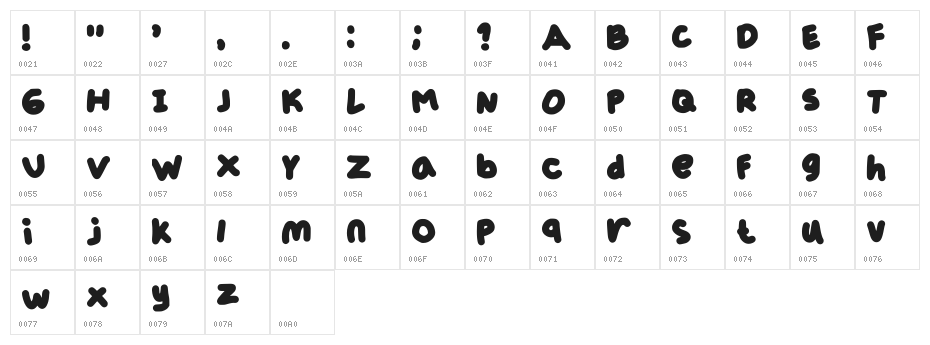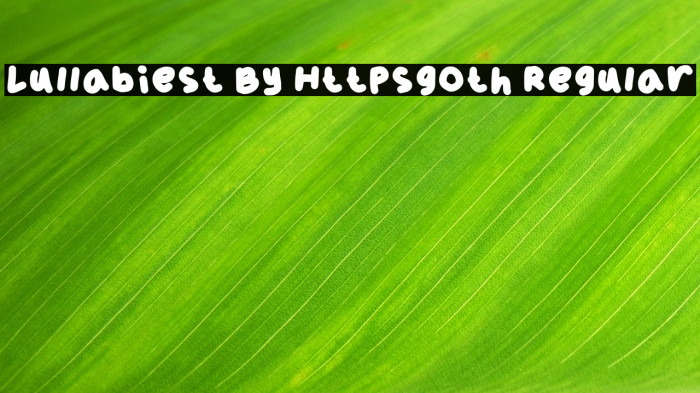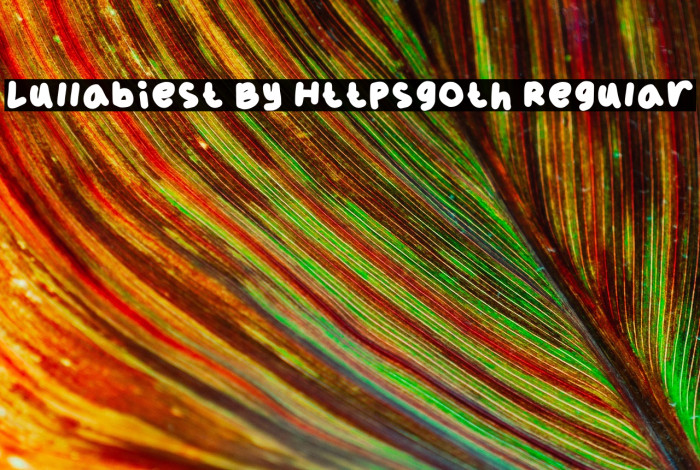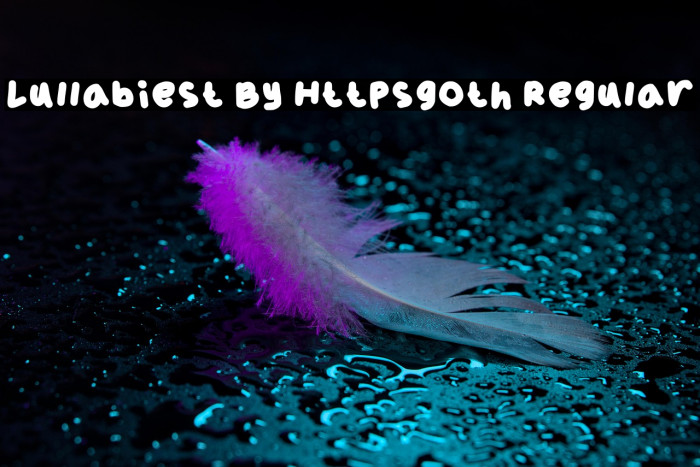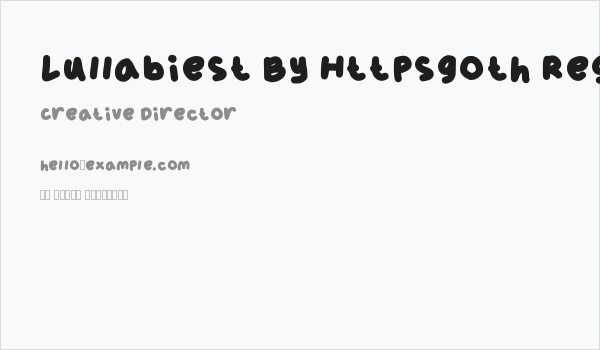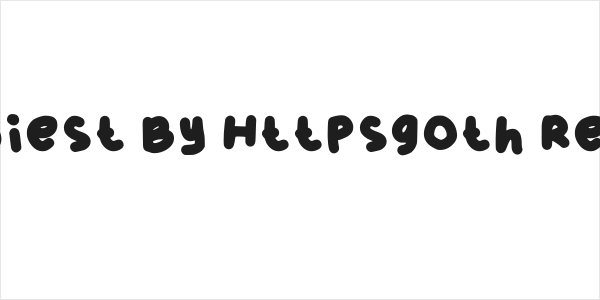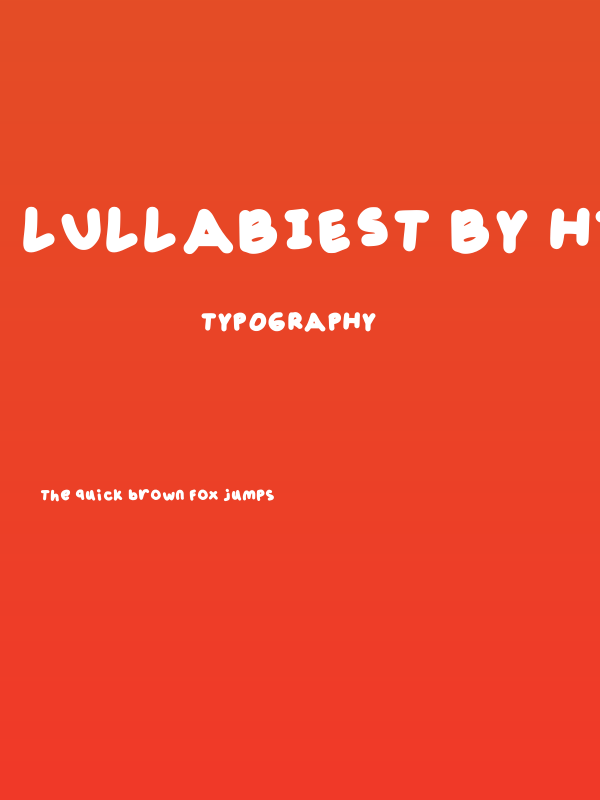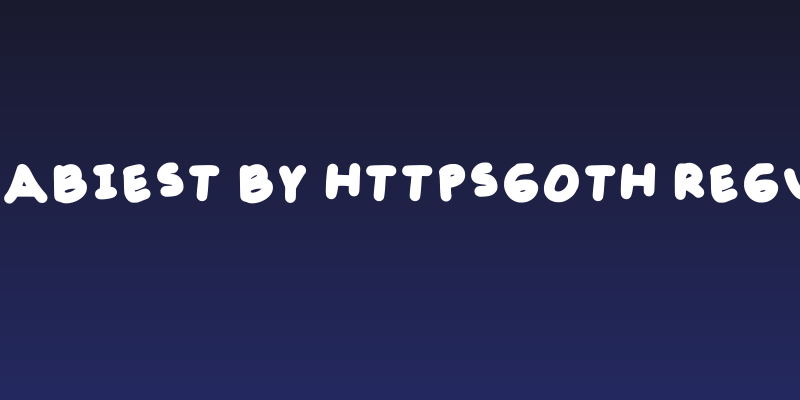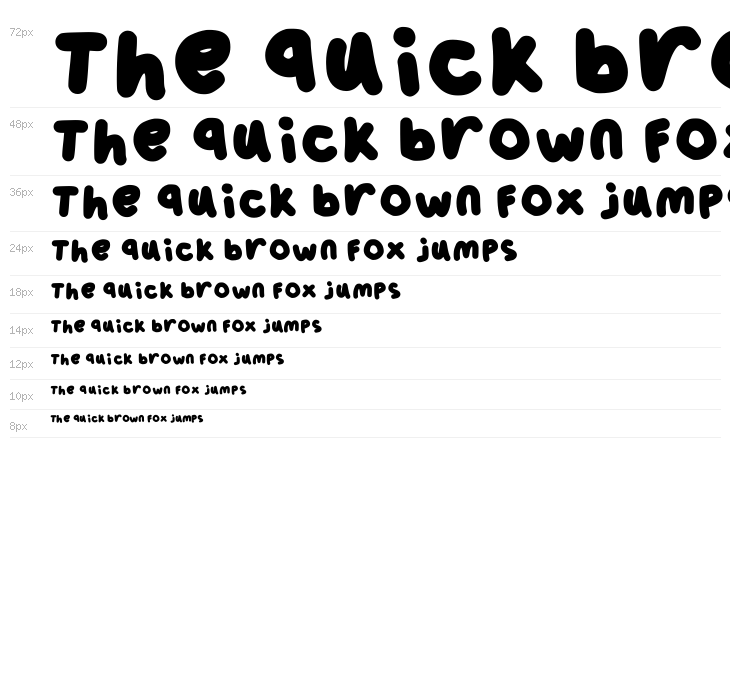
Lullabiest By Httpsgoth Regular Font
Lullabiest By Httpsgoth Regular Description
This playful and whimsical font features bold, rounded characters with a hand-drawn aesthetic. The letters are thick and have a slightly irregular shape, giving them a friendly and approachable feel. The uppercase and lowercase letters maintain a consistent style, with smooth curves and a uniform stroke width. The numbers and special characters follow the same design principles, ensuring a cohesive look across all text elements. This font's unique style makes it ideal for projects that require a touch of fun and creativity.